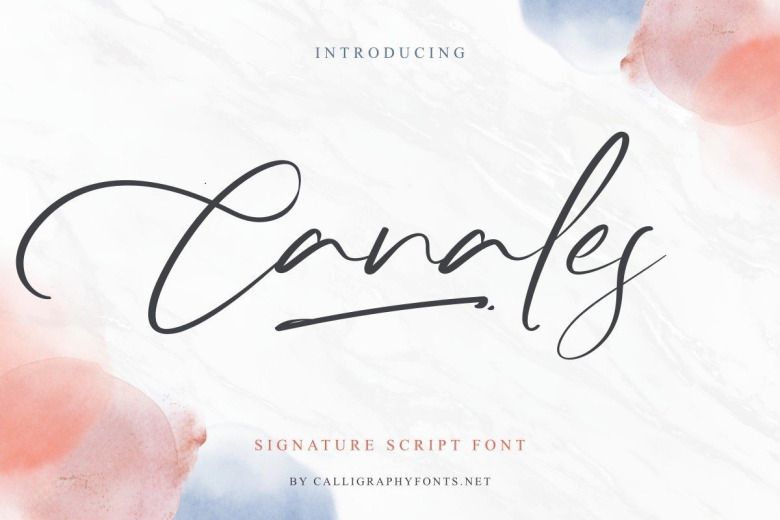
Canales Font
Canales Script Font is a beautiful signature brush script Font with an exclusive original style. The theme of this font are glamour, signature, modern, elegant, luxury, handwritten, classic and simple lettering.